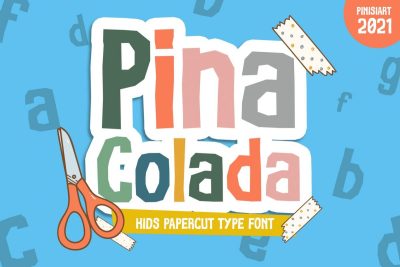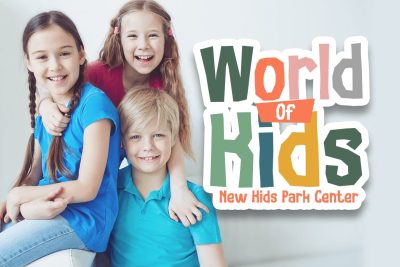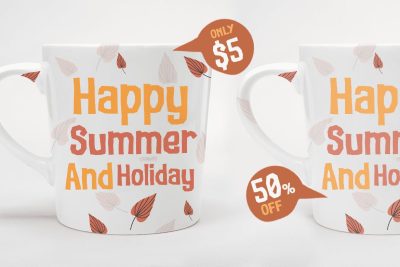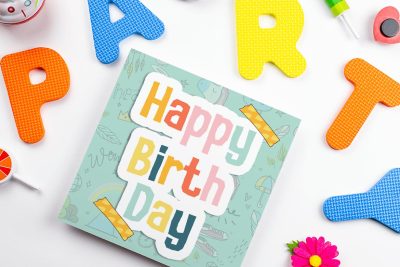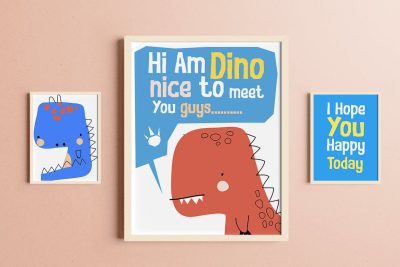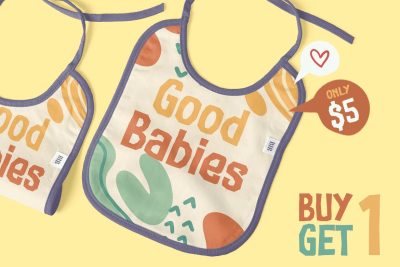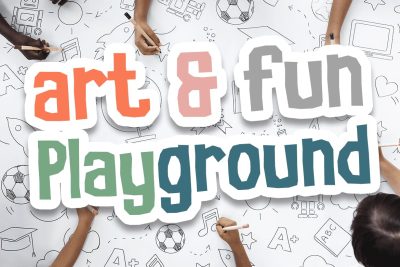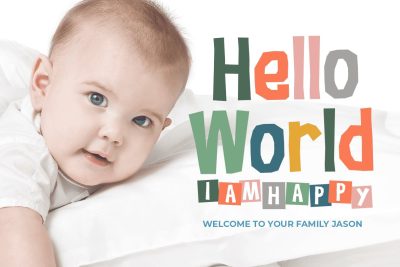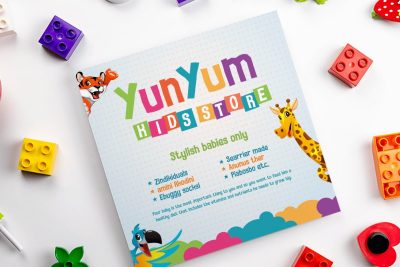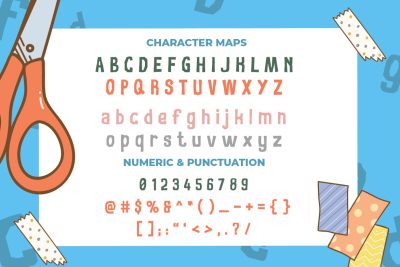
Kids Font Pina Colada is a lively and cheerful display typeface designed to bring fun and energy to your designs. Featuring playful, hand-drawn letterforms, it captures the carefree spirit of summer and creativity. Therefore, it is perfect for projects that aim to engage children or evoke joy and lightheartedness.
Moreover, the vibrant personality of Kids Font Pina Colada works well for both digital and print designs. Its rounded edges and unique curves ensure readability while adding a fun, informal look. Furthermore, this typeface stands out in headlines, posters, and creative branding. Additionally, its whimsical design pairs beautifully with colorful visuals, making it ideal for kid-friendly or playful projects.
This versatile typeface includes a wide range of characters, which makes it suitable for various languages and styles. As a result, its approachable design inspires creativity, making it a favorite for designers creating fun and memorable projects.
Kids Font Pina Perfect For
Kids Font Pina Colada is ideal for creative professionals, educators, and businesses adding energy to their designs.
- Children’s Books and Stories: For example, use it for titles, headings, or dialogue text to enhance storytelling with a playful touch.
- Educational Materials: Similarly, it adds excitement to activity sheets, flashcards, and posters, making learning more engaging for kids.
- Party Invitations and Dรฉcor: In addition, it works perfectly for birthdays, baby showers, or themed celebrations, adding a joyful flair to invitations.
- Toy and Game Packaging: Its friendly, energetic design works wonderfully on packaging for toys, puzzles, and games.
- Craft Projects and DIY Materials: Furthermore, it is great for handmade cards, scrapbooks, and printable projects, adding a unique, creative touch.
- Branding for Kids’ Products: Lastly, it is perfect for branding daycares, clothing lines, toy stores, or bakeries targeting young audiences.
In summary, Kids Font Pina Colada brings joy and playfulness to any project. Whether for kid-friendly designs or creative branding, its versatile style ensures your work stands out.